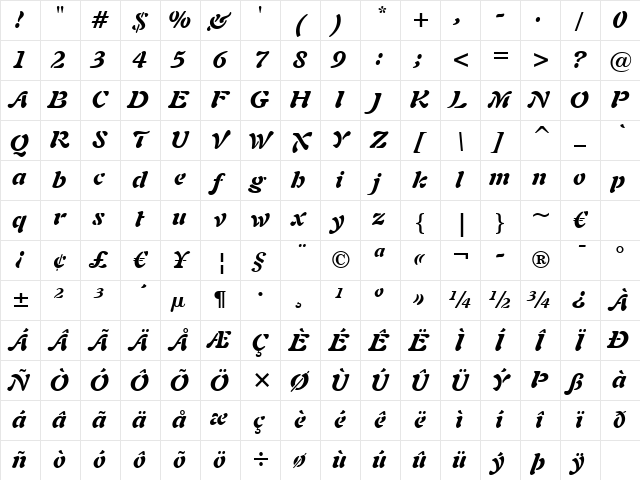
Freefrm721 Blk BT Black Italic
Design Context for Freefrm721 Blk BT
Freefrm721 Blk BT is a composed and adaptable typeface that performs quietly and consistently across a wide range of design contexts. The slanted form adds forward momentum and visual energy.
Pro Tip: Use Freefrm721 Blk BT for emphasis, pull quotes, and subheadings where its slanted energy can add rhythm to the layout.